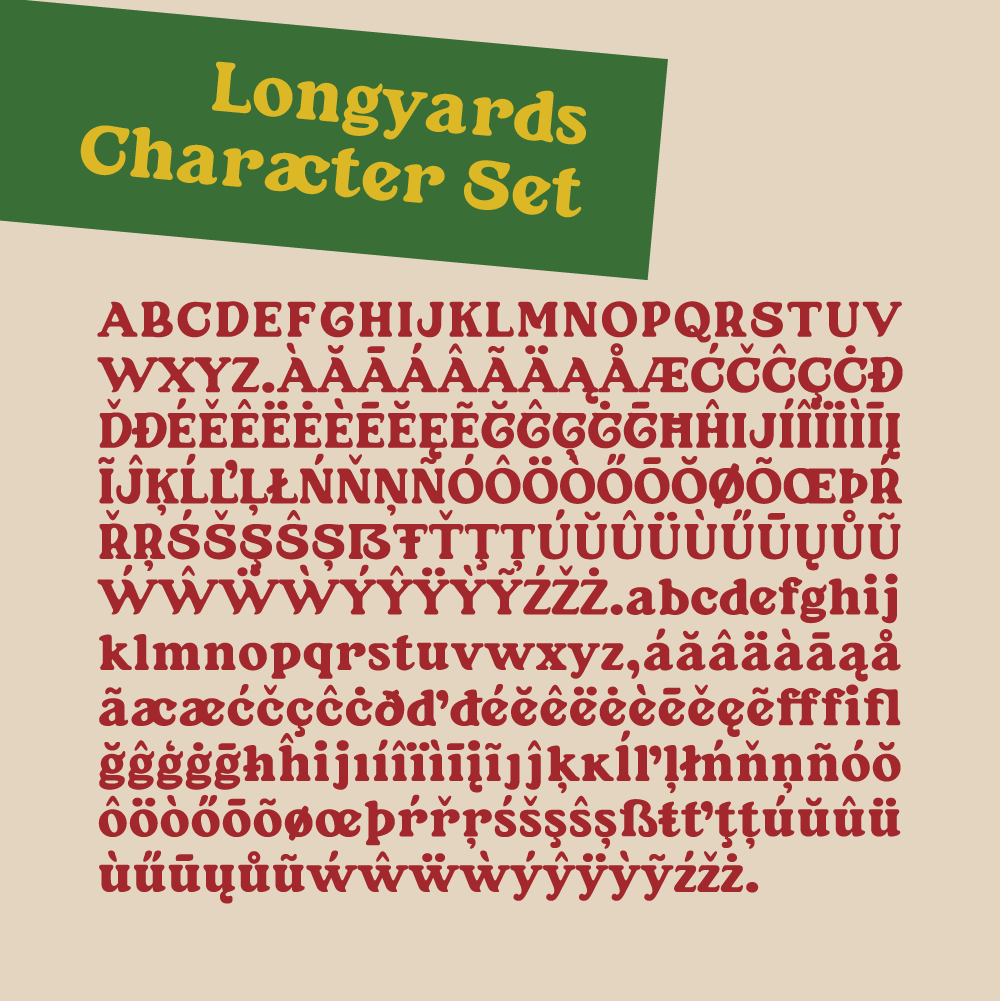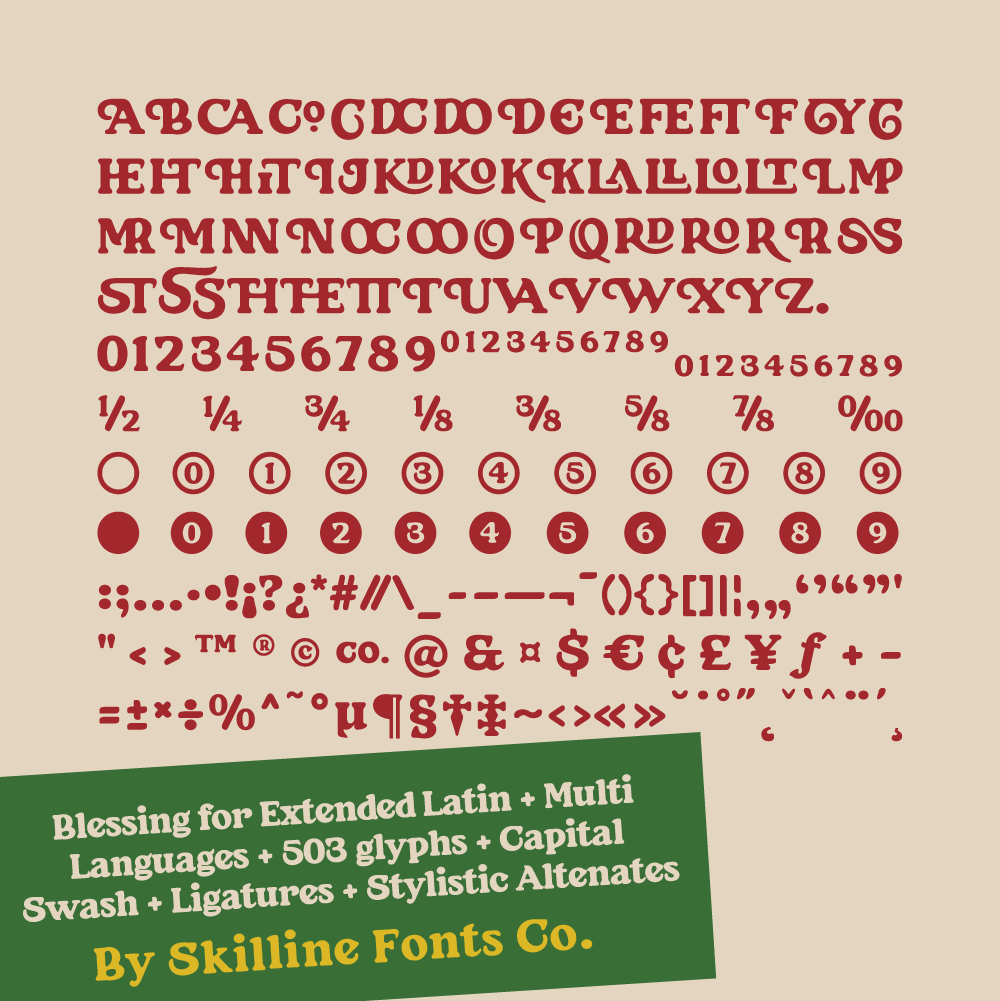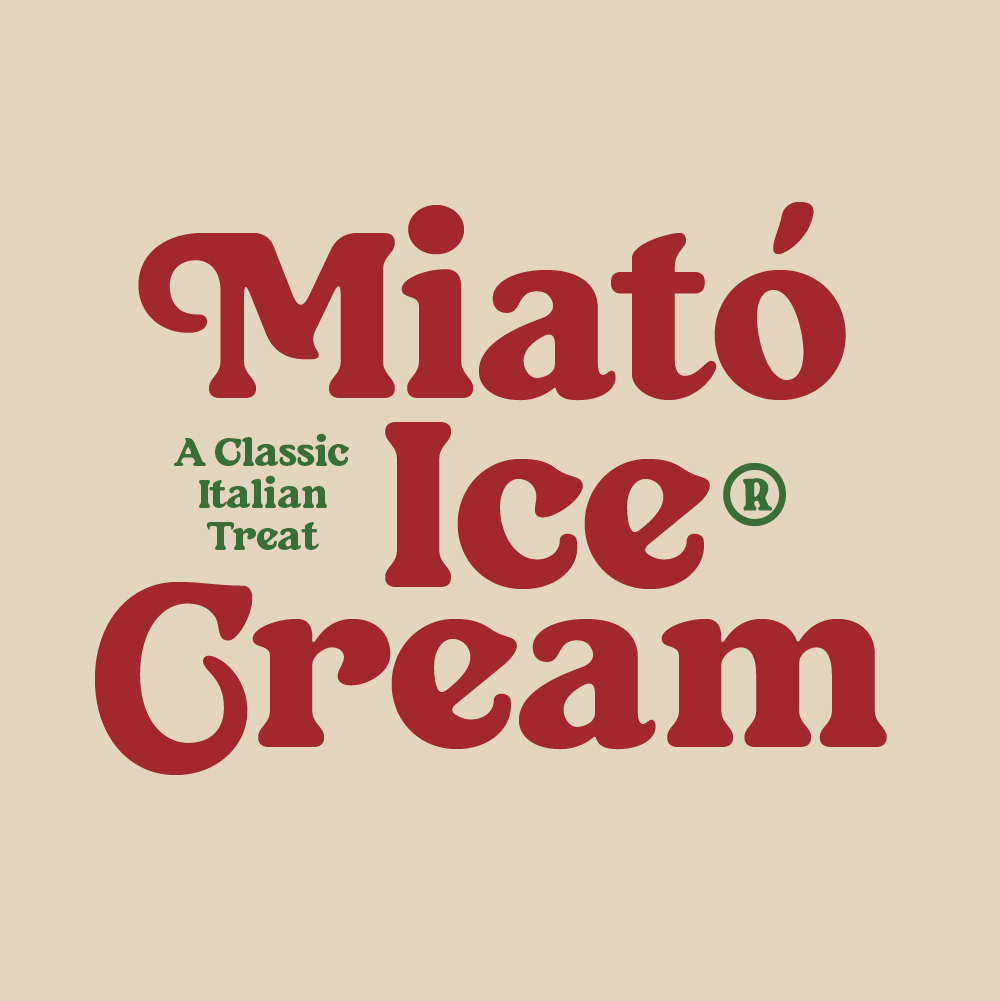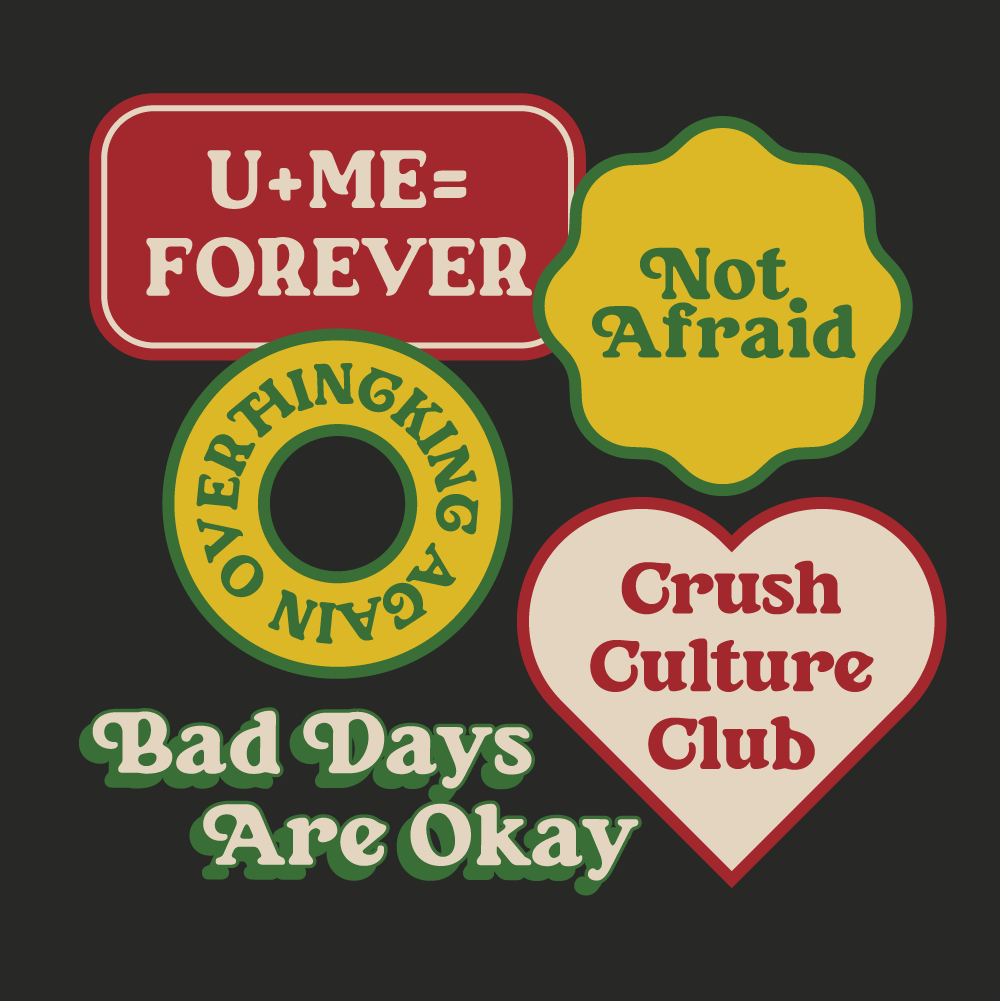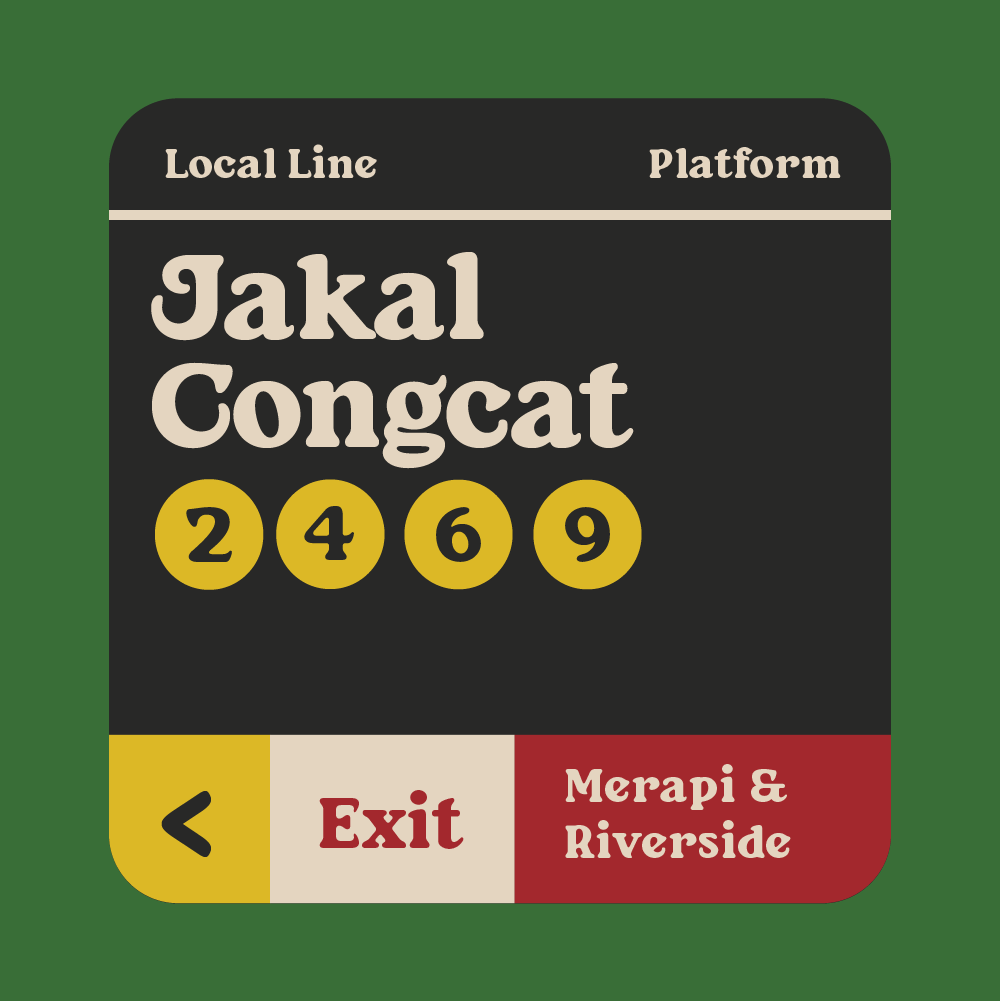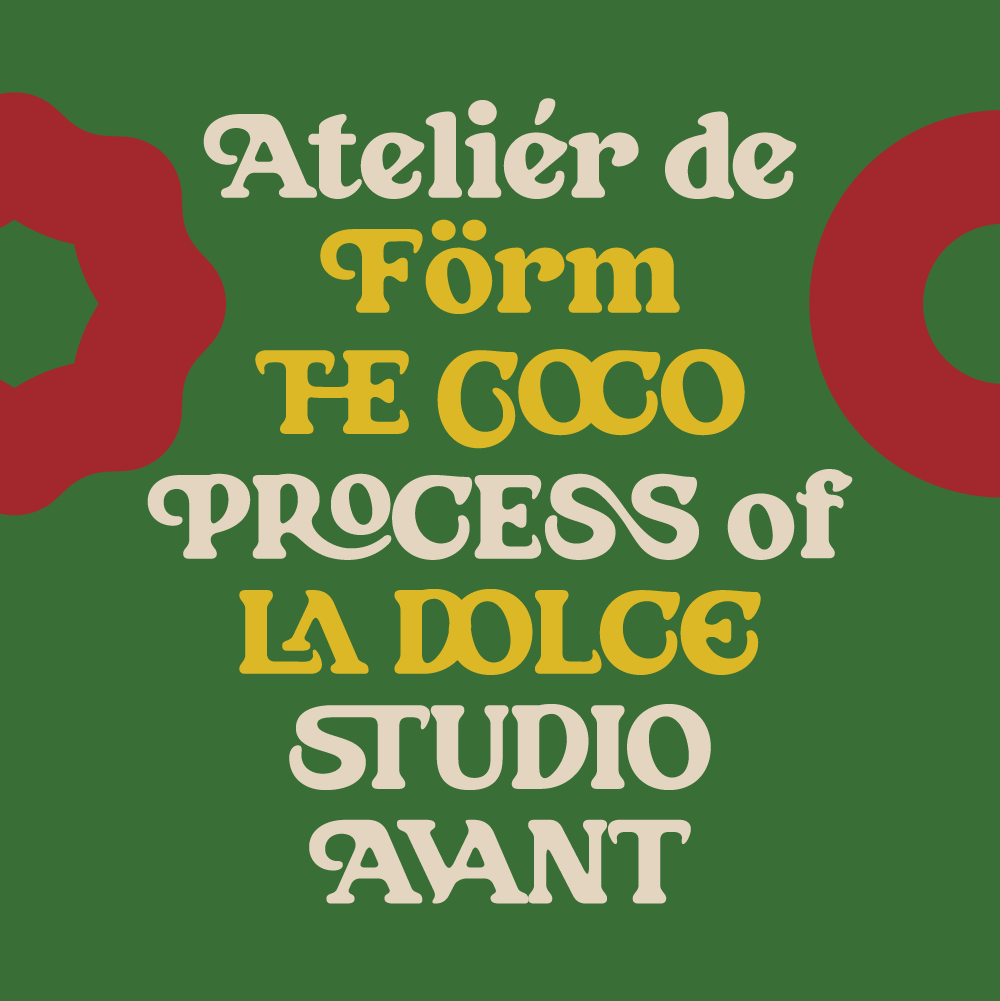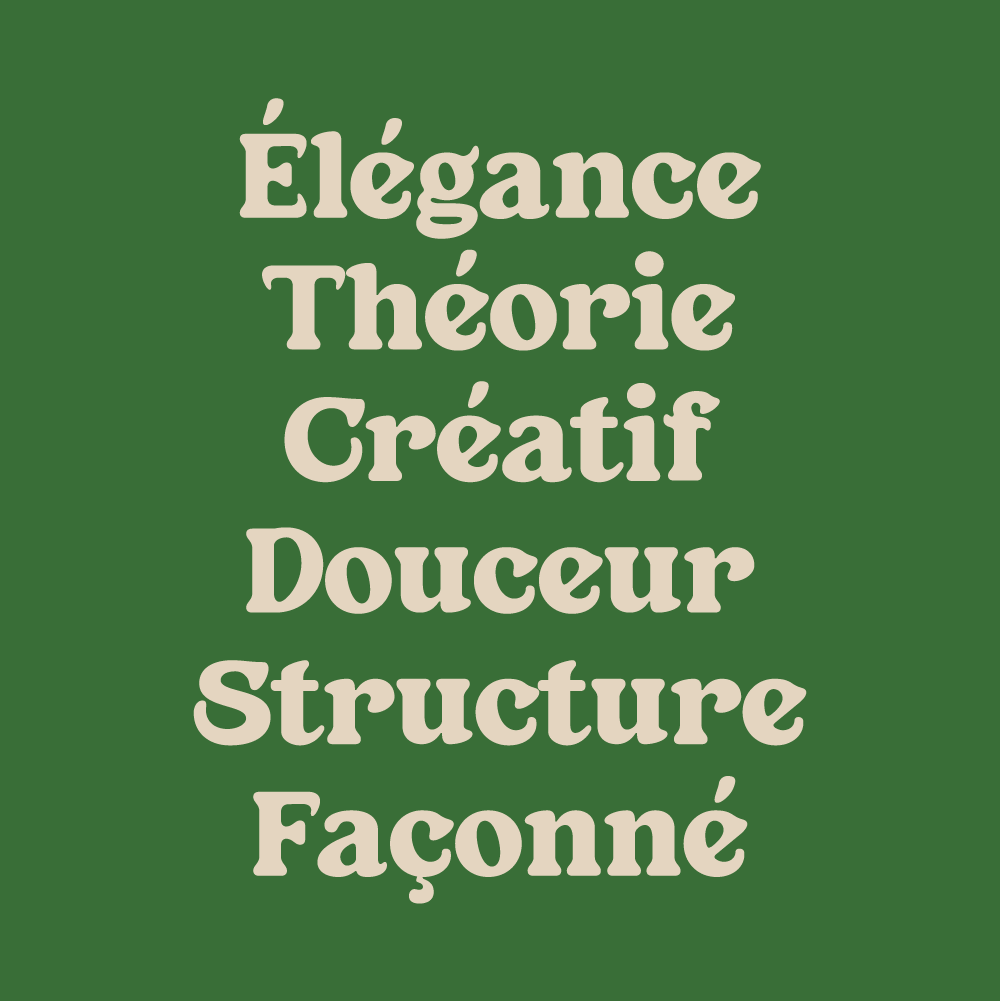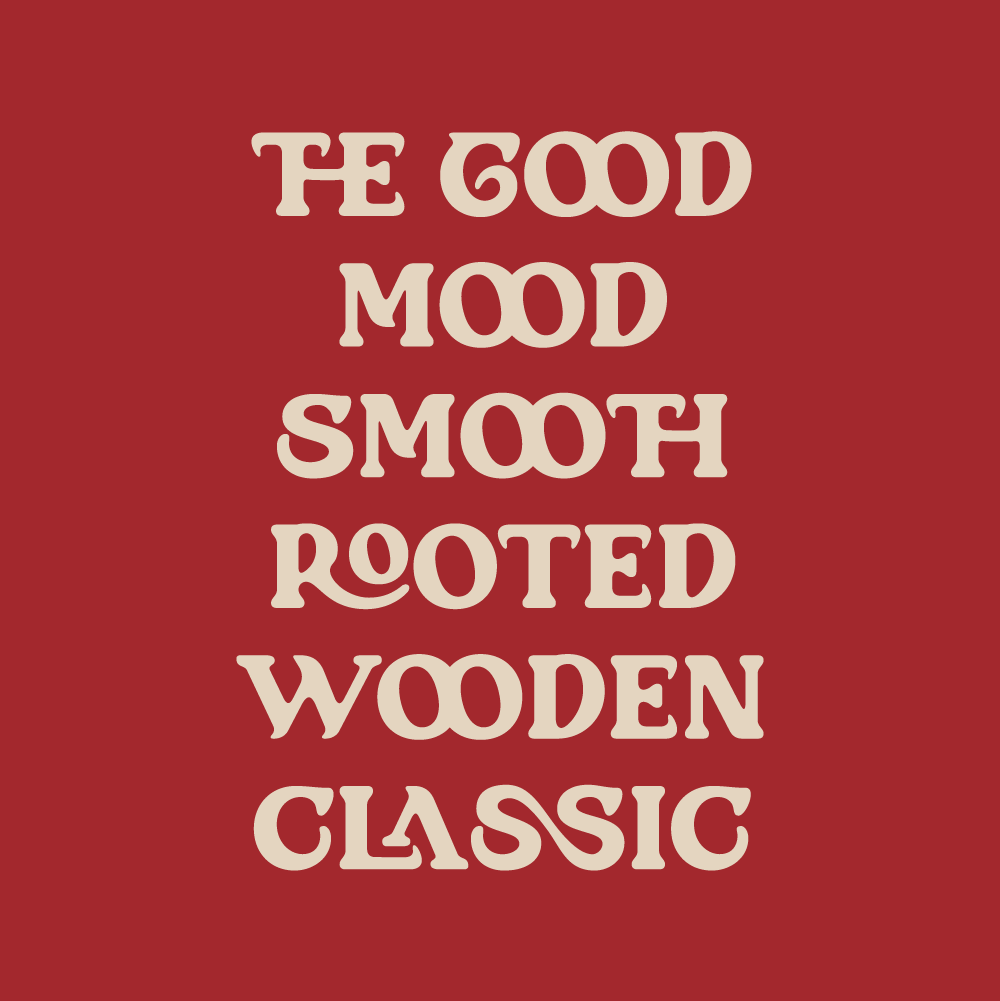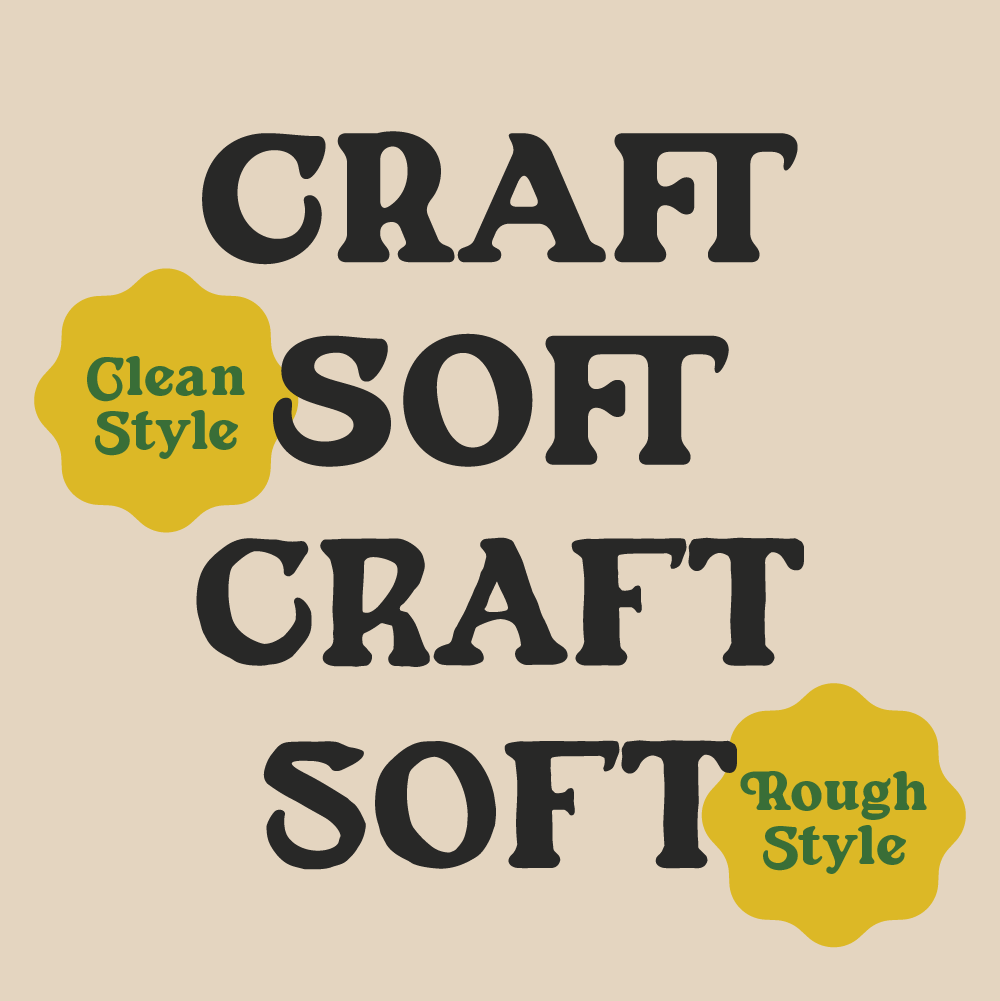
SFC Longyards - Clean
SFC Longyards - Rough
Description
Longyards is a vintage rounded serif display font inspired by classic European signage, Italian deli typography, and retro editorial lettering. Designed with soft curves, bold structures, and nostalgic proportions, it delivers a warm yet confident visual presence. Its distinctive letterforms balance vintage charm with modern clarity, making Longyards perfect for branding, packaging, food labels, posters, signage, and lifestyle merchandise. With multilingual support, stylistic alternates, ligatures, and swash details, this font brings expressive character and professional versatility to any display project.
Ideal Applications for SFC Longyards Typeface
• Food & beverage branding
• Italian restaurant & deli design
• Packaging & label design
• Vintage posters & ads
• Logos & badges
• Café & menu typography
• Apparel & merchandise
• Multilingual Character Set
• Ligatures & Stylistic Alternates
• Swash Characters
• Clean & Rough Style
• Uppercase & Lowercase
• Numerals & Punctuation